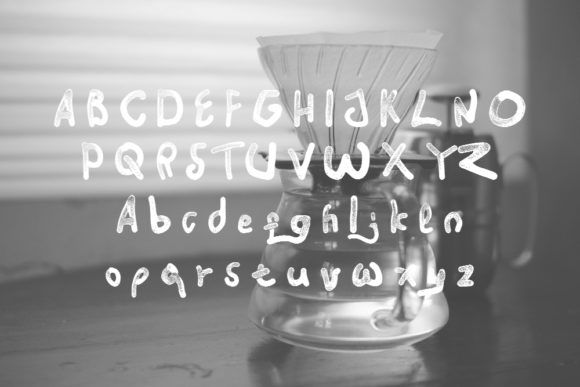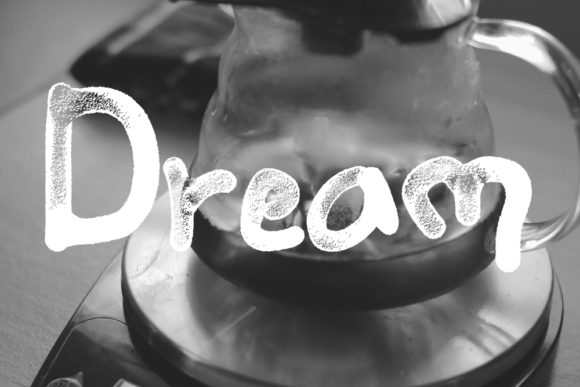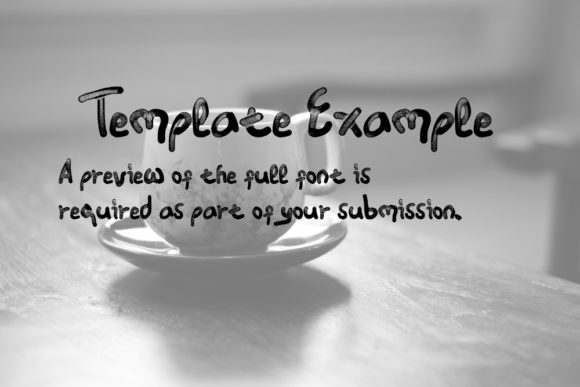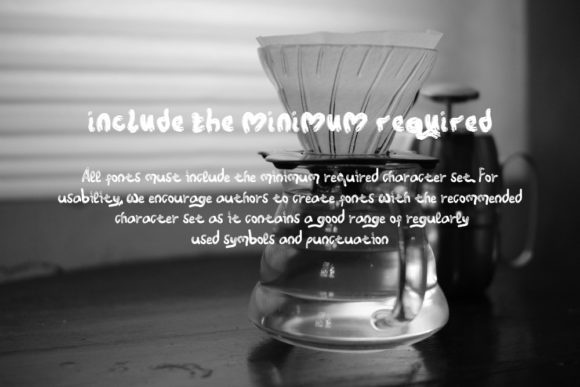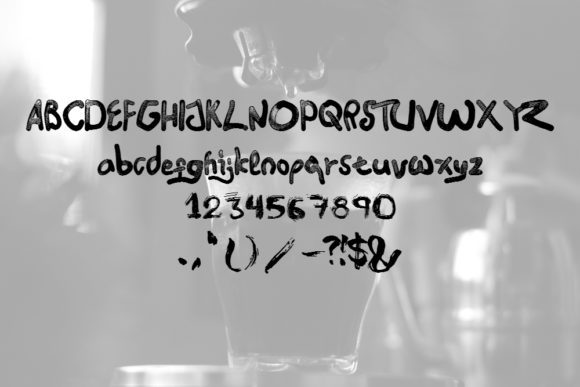
Introduction to Khuas Font
Have you ever found yourself in a creative frenzy, surrounded by papers, pens, and a dash of inspiration? That’s exactly where the magic happens – and for designers, the right font can make all the difference. Recently, I stumbled upon the Khuas Font, and I’m still in awe of its unique charm. This quirky display font was crafted with an incredibly precise brush pen, resulting in a one-of-a-kind design that’s sure to elevate any project.
Key Features of Khuas Font
- High-quality design resource with a unique, creative style suitable for various projects.
- Supports various languages, making it a versatile design resource for global creative projects.
- Includes a range of characters, including uppercase and lowercase letters, numbers, and symbols.
Honest Review: Khuas Font
Here are some things that I like about Khuas Font: ✨
- High quality: The font is incredibly detailed and looks great even when used on a transparent background.
- Unique style: The Khuas Font has a distinctive style that sets it apart from other fonts, making it perfect for projects that require a touch of elegance.
However, there are some limitations to consider: ⚠️
- Limited customization options: While the font looks great on its own, it’s not as customizable as some other fonts on the market.
- May not work well in small sizes: The font’s unique style may not hold up well when used in small sizes, so it’s best to use it in larger formats.
Overall, I’m very impressed with Khuas Font. It’s a great addition to any design library and is perfect for creative projects that require a unique touch. I would highly recommend it to anyone looking for a high-quality, free font.
Khuas Font
Khuas Font is perfect for creating visually appealing designs, such as logos, business cards, and brochures. It’s also great for creating social media graphics, presentations, and reports.
Tips for Getting the Most Out of Khuas Font